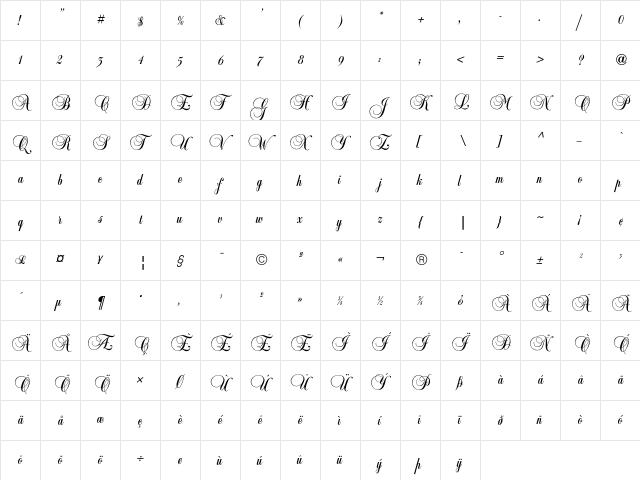
BalmoralICG Regular
Design Context for BalmoralICG Typeface
BalmoralICG is a composed and adaptable typeface that performs quietly and consistently across a wide range of design contexts.